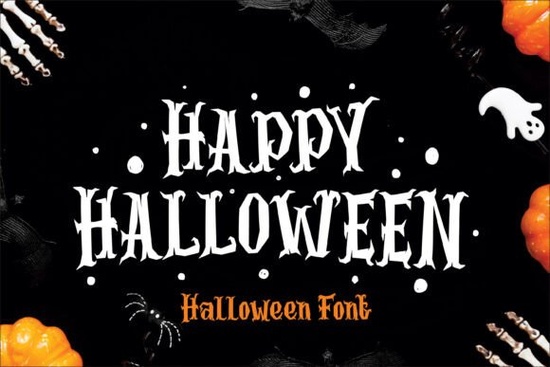
The Halloween Font is a standout choice for anyone looking to add a spooky, eye-catching vibe to their creative projects. Whether you're designing posters, t-shirts, or decorations for the season, this display font brings a unique blend of eerie charm and playful design. Its gothic-inspired letterforms and intricate details make it perfect for Halloween-themed work, helping your designs stand out with a touch of macabre magic.
One of the key features of the Halloween Font is its attention to detail. Each character is crafted to evoke the essence of Halloween, with elements like cobweb-like patterns, bat-wing embellishments, and elongated descenders. These subtle touches create a sense of mystery and excitement, making the font ideal for a wide range of applications. From screen printing on apparel to embroidery and crafts, the font adds a layer of visual interest that captures the spirit of the holiday.
Why Choose the Halloween Font?
If you're looking for a font that combines both style and substance, the Halloween Font is an excellent option. It’s not just about the look it’s about how it can enhance your creative workflow. The bold, twisted serifs and haunting color palette make it easy to create designs that feel authentic to the Halloween theme. This makes it a go-to choice for designers, crafters, and small businesses who want to produce high-quality, themed content quickly and efficiently.
For those working on print-on-demand projects, the Halloween Font offers versatility. It works well in both digital and physical formats, ensuring that your designs maintain their impact across different mediums. Whether you’re creating a Halloween poster or adding a spooky touch to a t-shirt, this font helps you achieve a professional and cohesive look without the need for complex design skills.
How to Use the Halloween Font
Using the Halloween Font is straightforward, but there are a few tips to keep in mind for the best results. Start by selecting the right size and spacing for your project. Since the font has detailed elements, it’s important to ensure that the text is legible while still maintaining its spooky aesthetic. You can experiment with different color combinations to match your overall design, using traditional Halloween hues like black, red, and green for maximum effect.
When working with the font in design software, consider how it interacts with other elements in your layout. The intricate details may require some adjustment to avoid overcrowding or distortion. For example, if you’re using the font in a poster, make sure there’s enough negative space around the text to let it shine. This will help your message stand out while keeping the design balanced and visually appealing.
If you're new to using display fonts, the Halloween Font is a great starting point. It’s easy to work with and offers a lot of creative flexibility. You can use it for headlines, logos, or even as a background element in your designs. Its unique style makes it ideal for projects that require a strong visual statement, such as holiday promotions or themed events.
For more Halloween-specific fonts, you can explore the Halloween Font Display Fonts section on Creative Fabrica. This collection includes a variety of options that can help you find the perfect match for your next project. Whether you're looking for something more traditional or a modern twist on classic Halloween themes, there's likely a font that fits your needs.
By incorporating the Halloween Font into your creative toolkit, you can elevate your designs with a touch of spooky flair. Its combination of style, functionality, and thematic appeal makes it a valuable resource for anyone involved in design, crafting, or small business ventures.
- Experiment with different color schemes to find the best fit for your design.
- Use the font in moderation to maintain readability and visual balance.